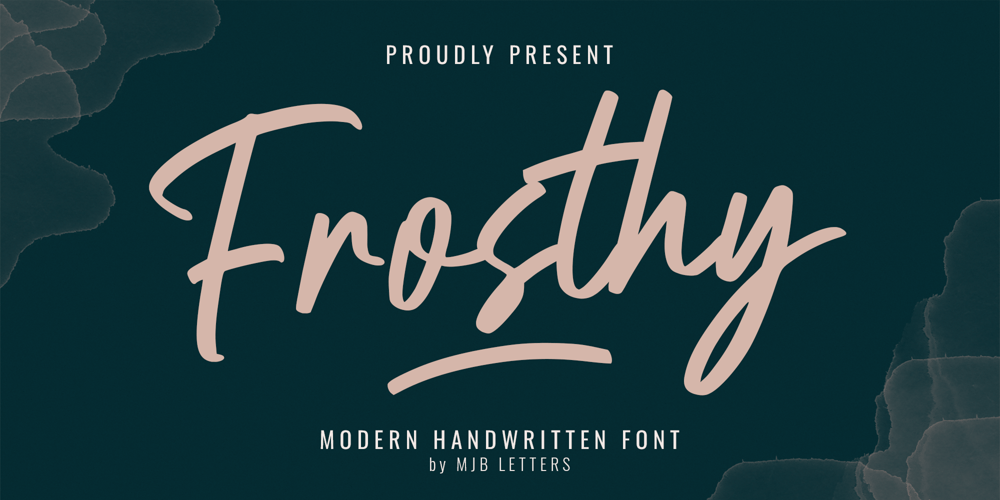
Froshy Font Family was designed by Muhammad Mujibulloh and published by MJB Letters. Froshy contains 1 styles and family package options. Froshy handwritten script font is a charming casual handwritten font that effortlessly blends playfulness with elegance. Froshy font features smooth, flowing strokes that give it a natural and personal feel. Additionally, Froshy font is perfect for a wide variety of design projects, adding warmth and character to any creation.Ideal Uses for Froshy Handwritten Script FontThis Froshy handwritten script font is ideal for use in branding, logos, invitations, social media posts, packaging, and more. Whether you’re working on a modern brand identity, a creative project, or a special event, Froshy font brings an approachable yet stylish element to your designs. Furthermore, the flowing letterforms give a sense of casual sophistication, making it suitable for both informal and semi-formal uses.Versatility of Froshy Font in Different LanguagesNot only is Froshy font visually appealing, but it is also highly versatile. The font supports multiple languages, making it a great choice for global brands or projects with diverse linguistic needs. Moreover, its clean and legible design ensures that it works well in both large and small sizes, from website headers to fine print.Adding a Personal Touch with Froshy FontWith Froshy font, you can easily add a personal touch to your design work. The handwritten script style creates a connection with your audience, giving your projects an authentic, human feel. Perfect for creative professionals, wedding planners, graphic designers, and anyone looking to elevate their work with a unique handwritten style.Conclusion: Why Choose Froshy Handwritten Script Font?In conclusion, Froshy handwritten script font is the perfect choice for anyone seeking a fresh, casual, and modern font. Whether you need it for branding, invitations, or any other design project, Froshy font brings a touch of elegance with a relaxed twist. Finally, add this versatile font to your toolkit and start creating memorable, impactful designs today!